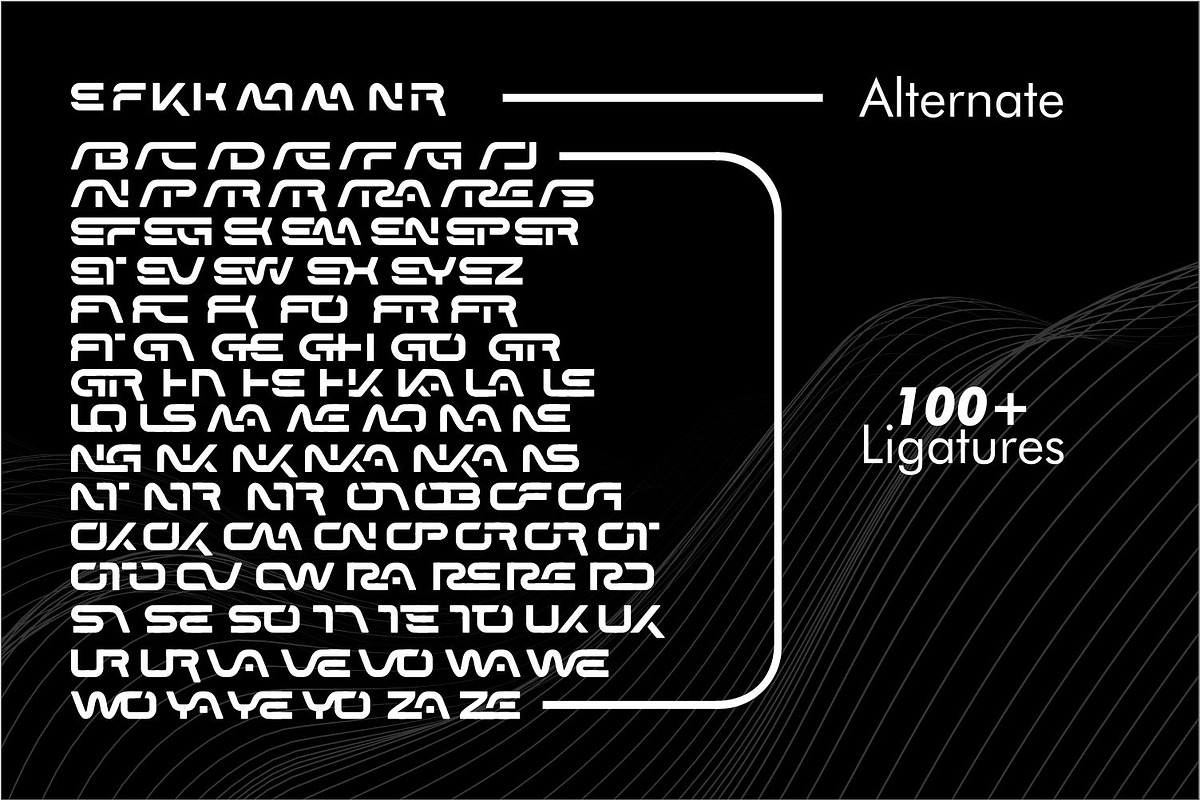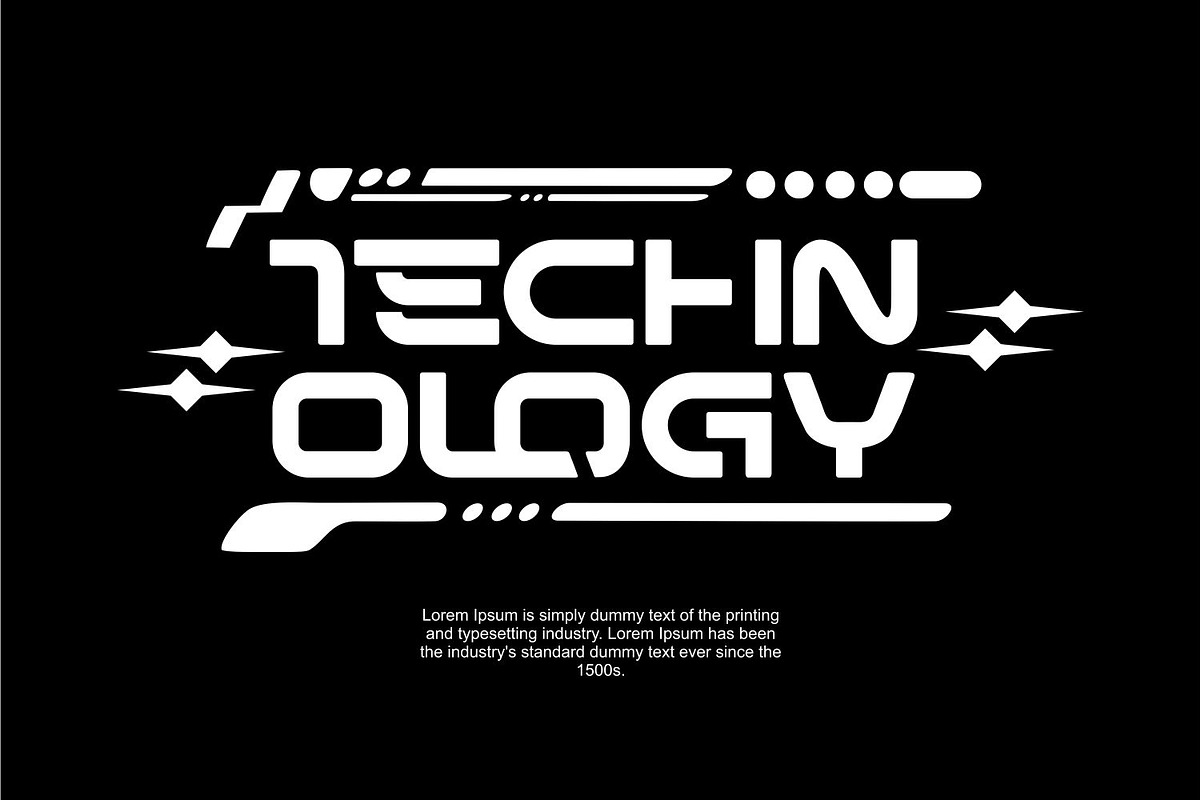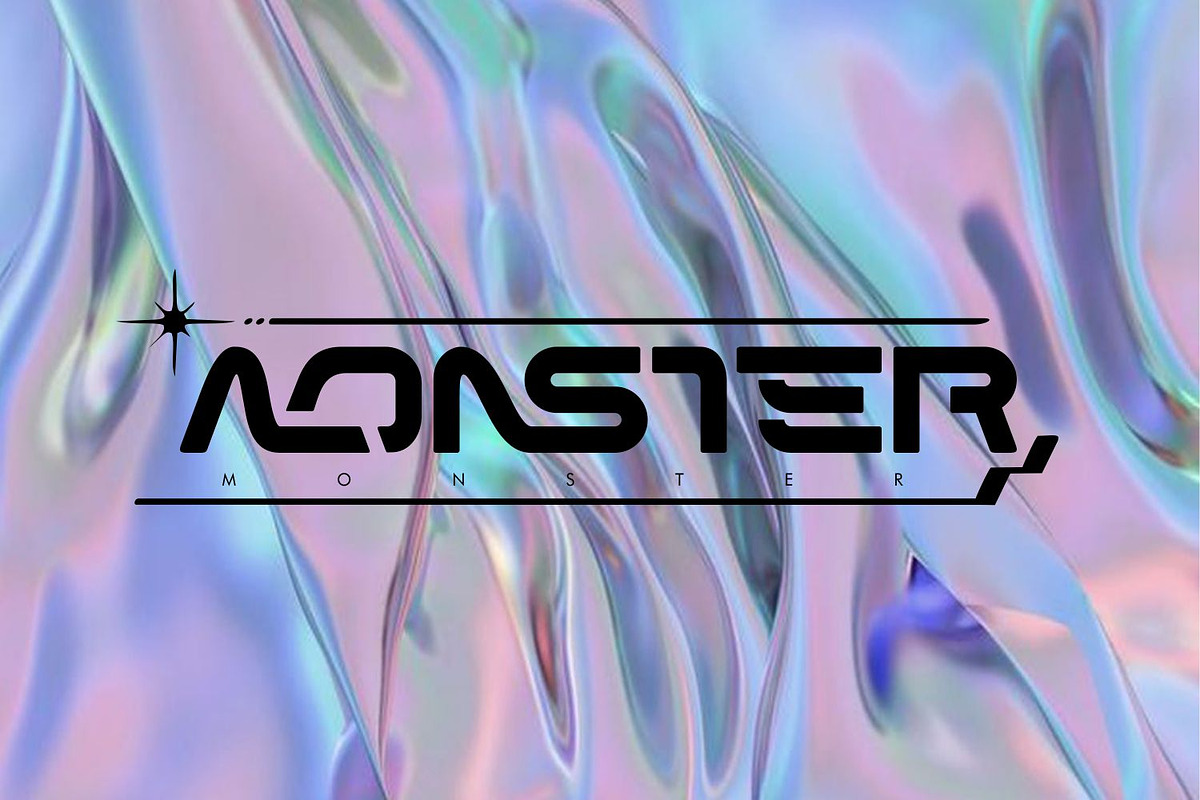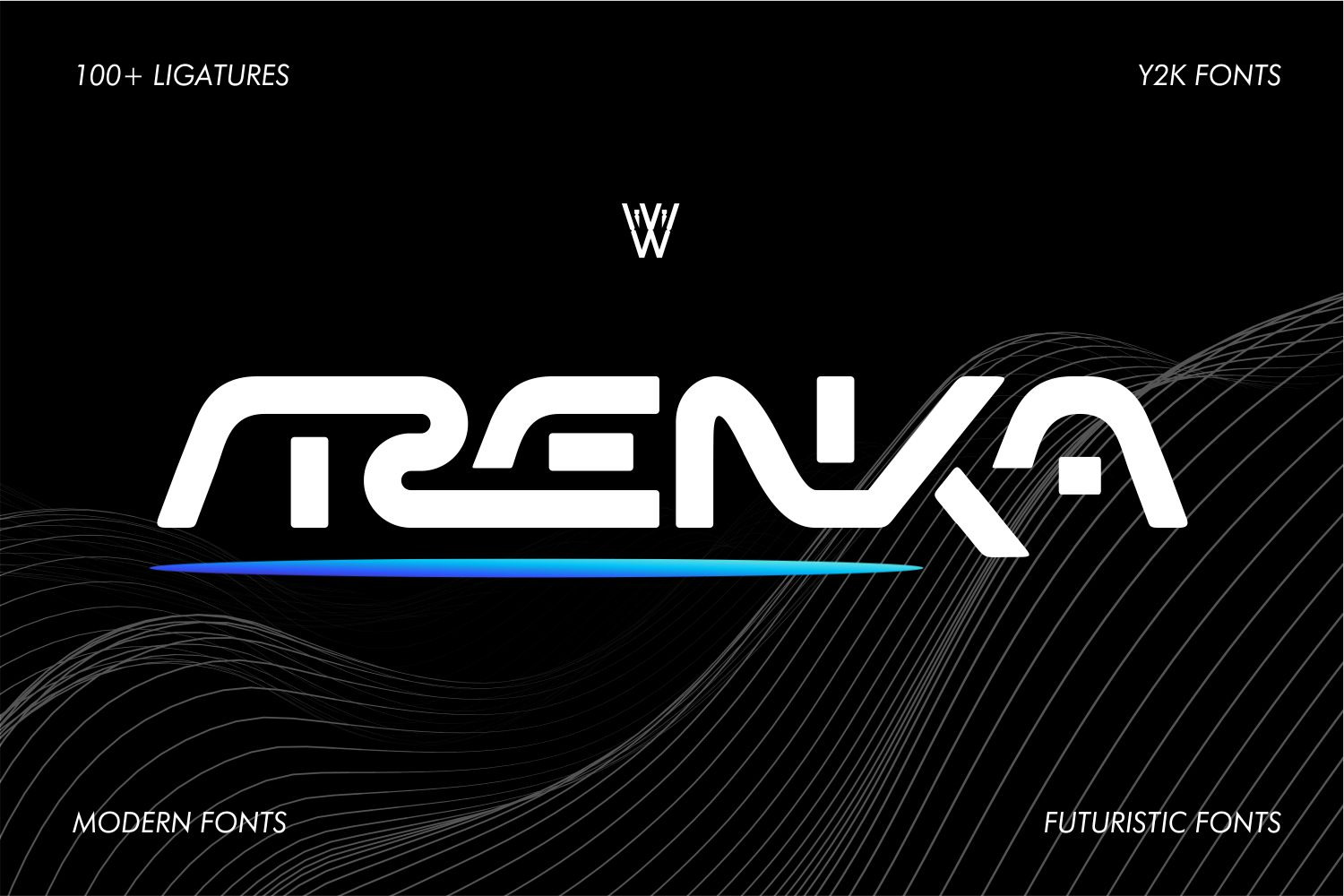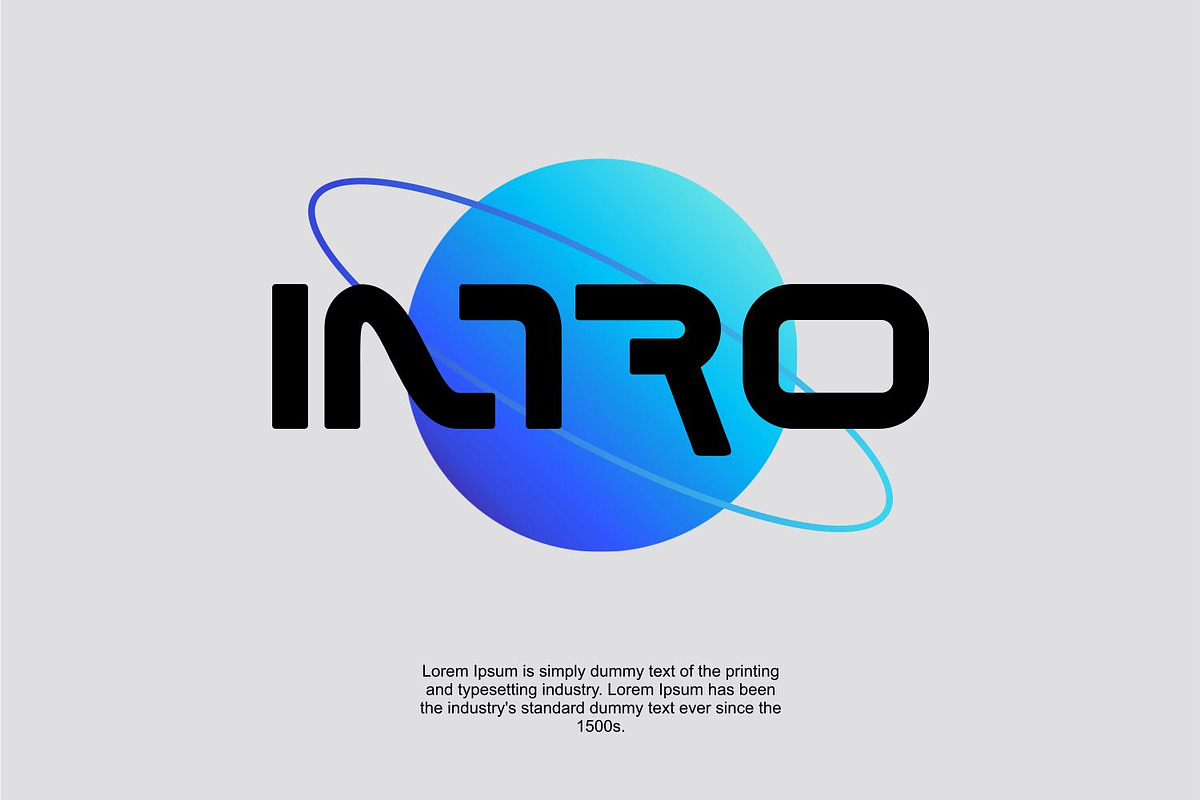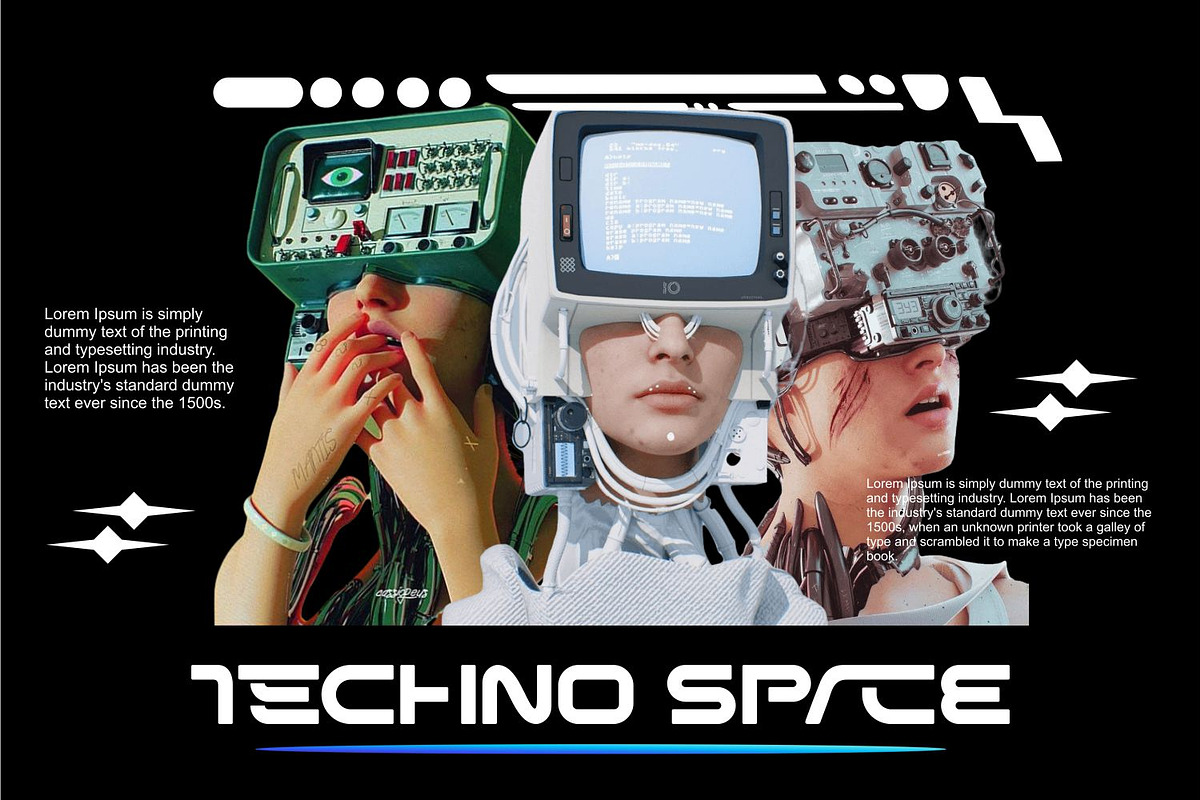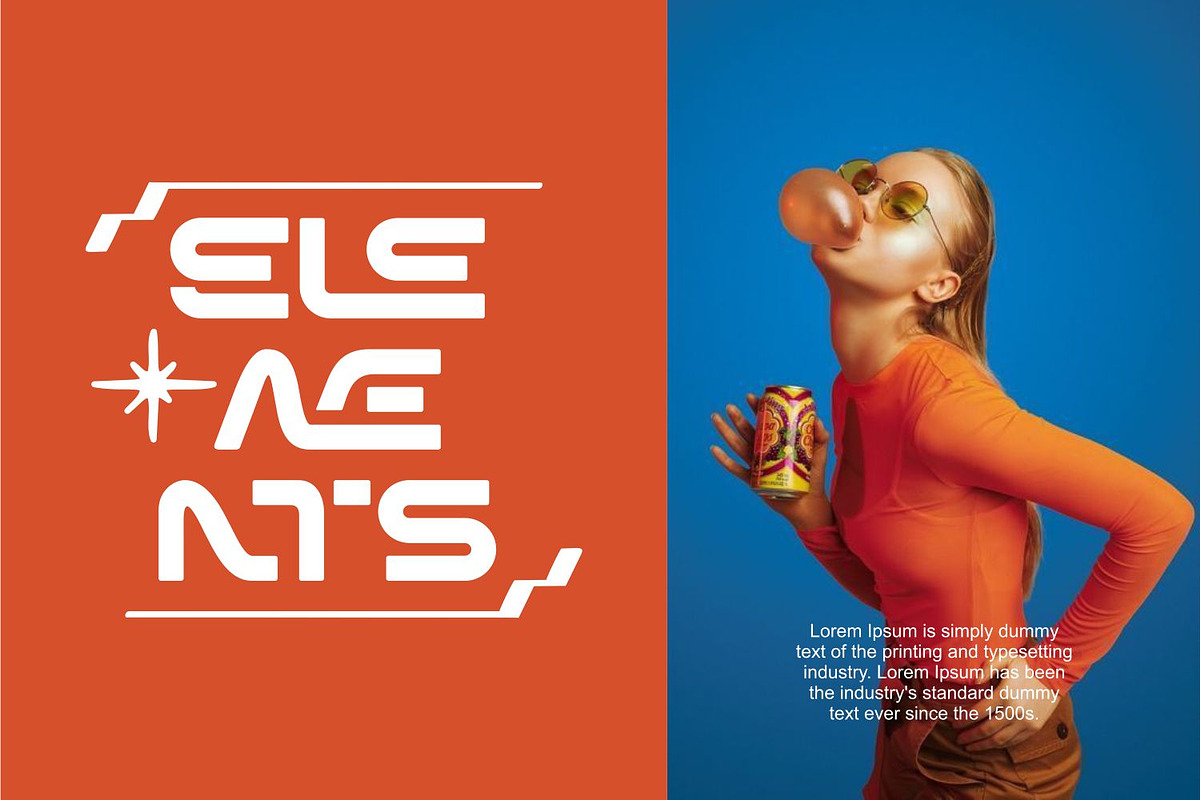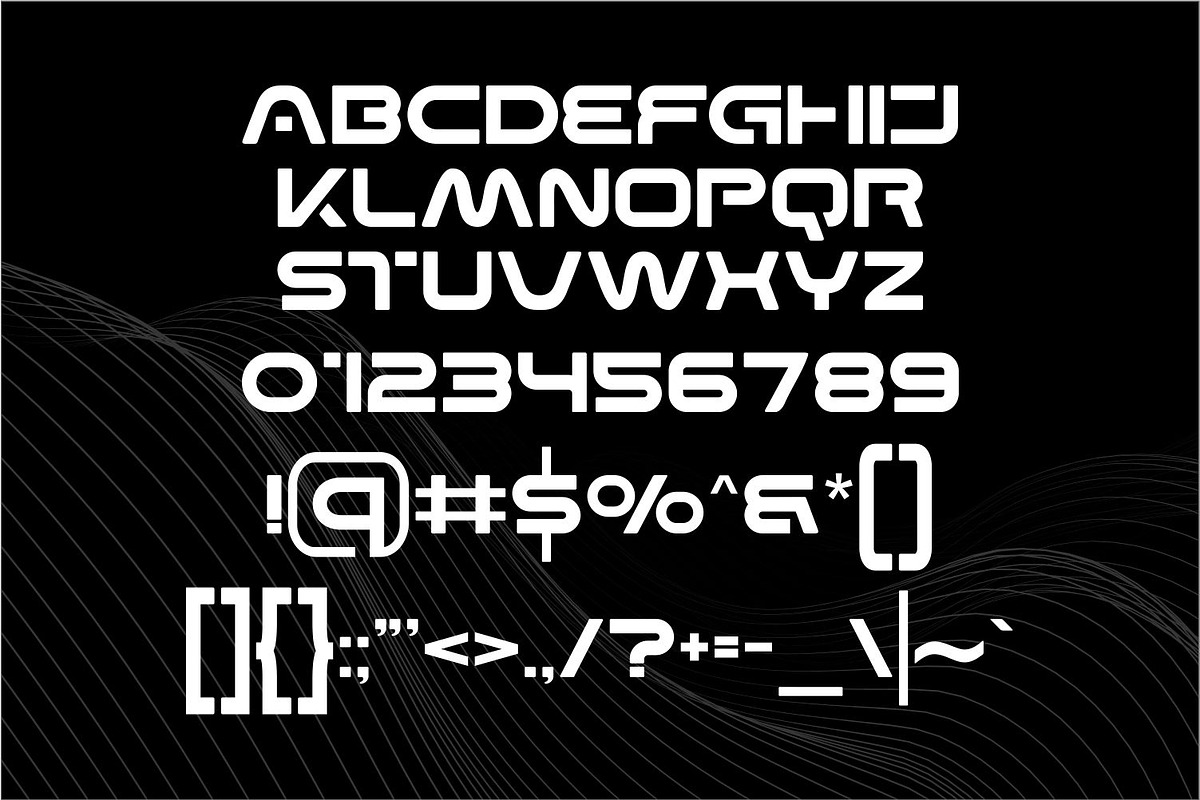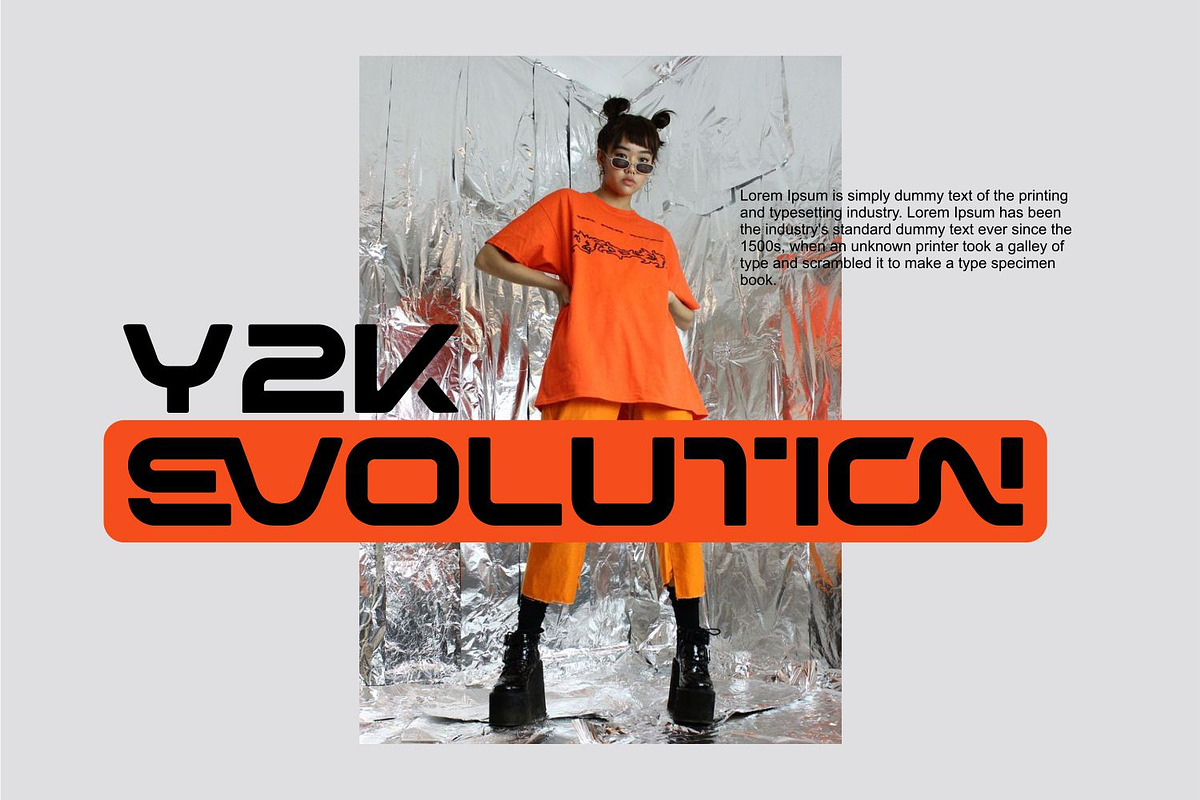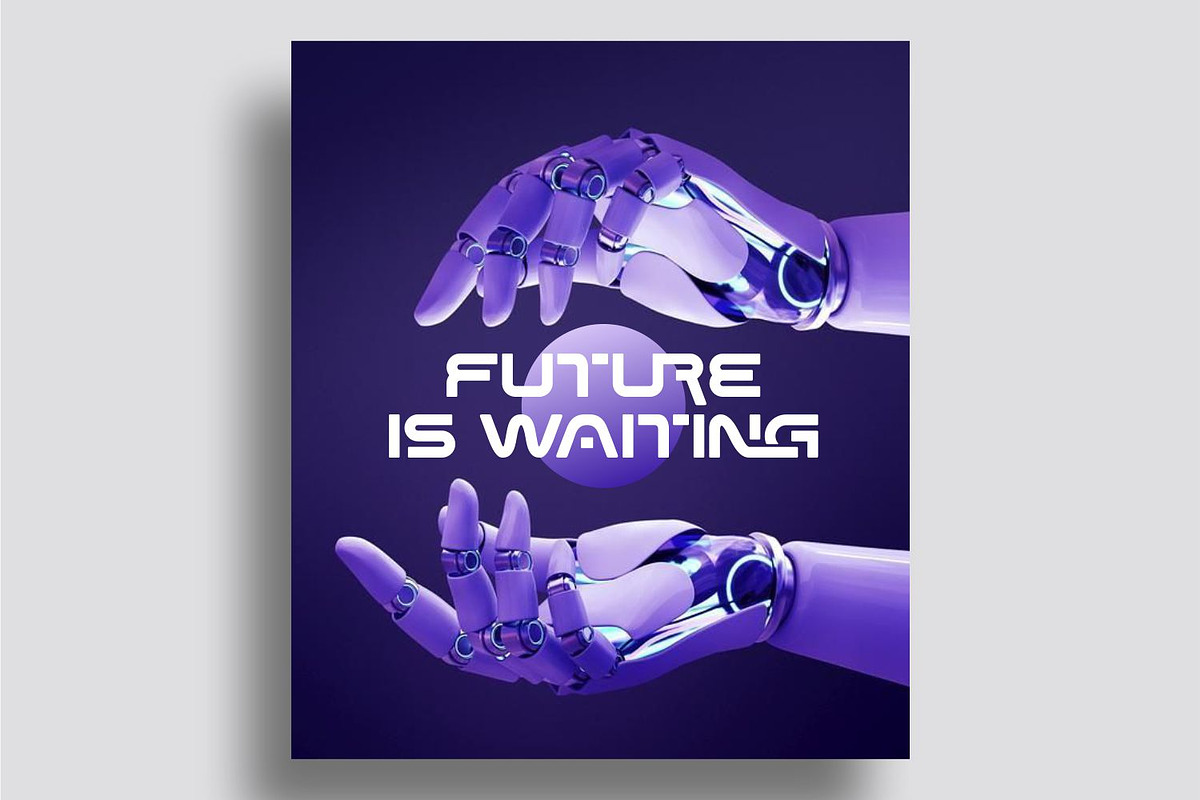
Arenka | Futuristic Font | Y2k Font
The Arenka Font is a captivating fusion of futuristic design elements and Y2K aesthetics, representing an evolution of style and innovation. Inspired by the digital revolution of the late 20th century and the cutting-edge technology of the future, this font features sleek lines, bold letterforms, and vibrant colors that evoke a sense of progress and nostalgia. Whether you’re designing for retro-futuristic themes, tech startups, or innovative branding, the Arenka Font adds a touch of contemporary flair that captivates the viewer. Its versatile design makes it perfect for a wide range of digital and print applications, embracing the evolving landscape of design with its dynamic presence.